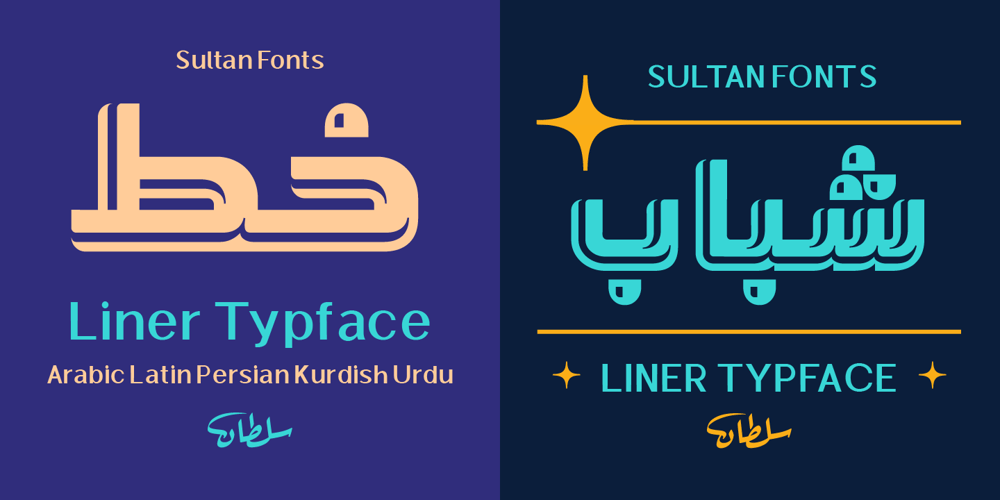
SF Liner
SF Liner font
SF Liner Font Family was designed by Sultan Maqtari and published by Sultan Fonts. SF Liner contains 1 styles and family package options. A Revised Description of a Liner TypefaceA liner typeface is a distinctive type of digital font characterized by a consistent, uniform stroke weight throughout. Unlike fonts with varying stroke thicknesses, liner typefaces maintain a single, uniform weight across all characters. This consistency gives the typeface a clean, streamlined appearance, making it ideal for designs that require high legibility and clarity.Key features of liner typefaces:Consistent weight: Liner typefaces have a uniform stroke weight throughout.Legibility and clarity: Liner typefaces are highly legible and clear, even at small sizes.